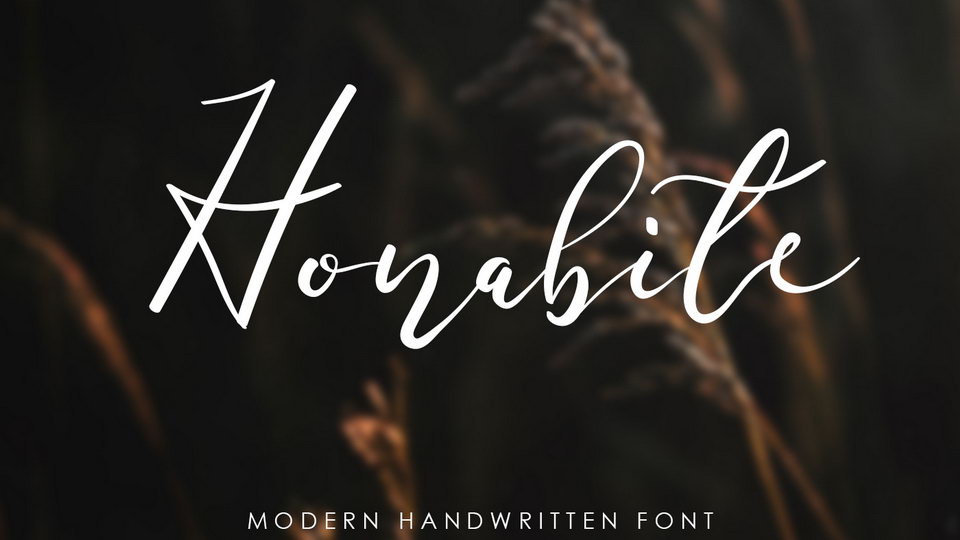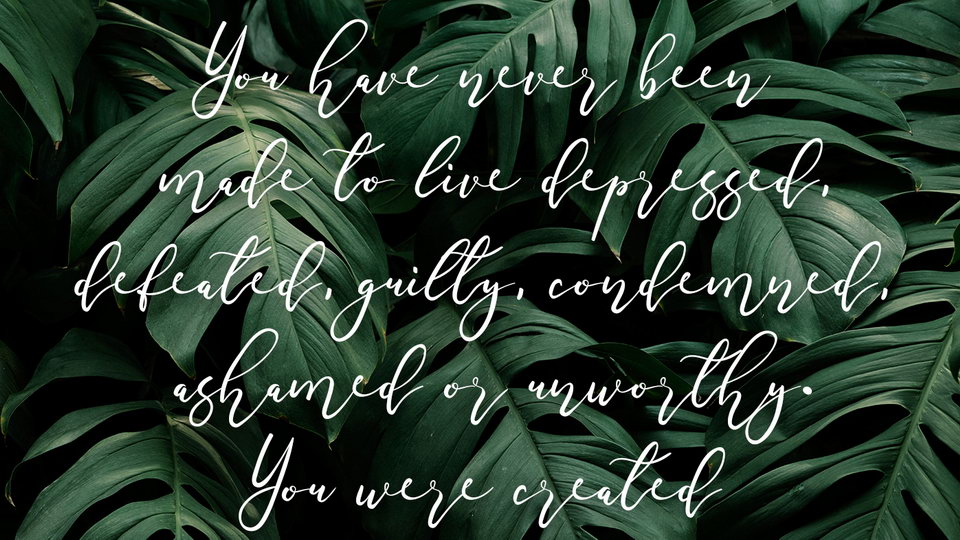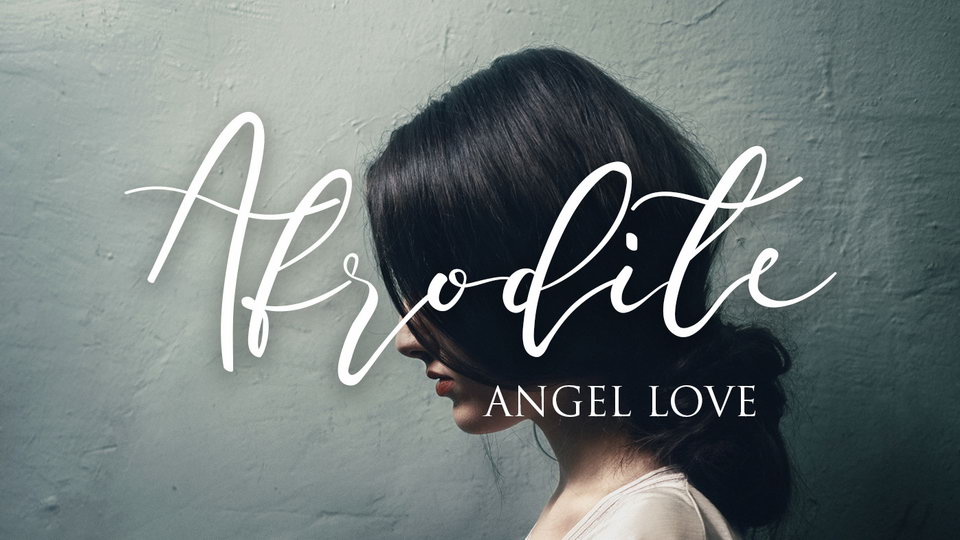
Honabite is a beautiful handwritten font with an unique style. It includes elegant movements and is perfect for adding some grace to your designs.
It’s can be used for branding projects, logos, wedding designs, social media posts, advertisements, product packaging, product designs, labels, photography, watermarks, and any other design which needs a striking, yet elegant touch.